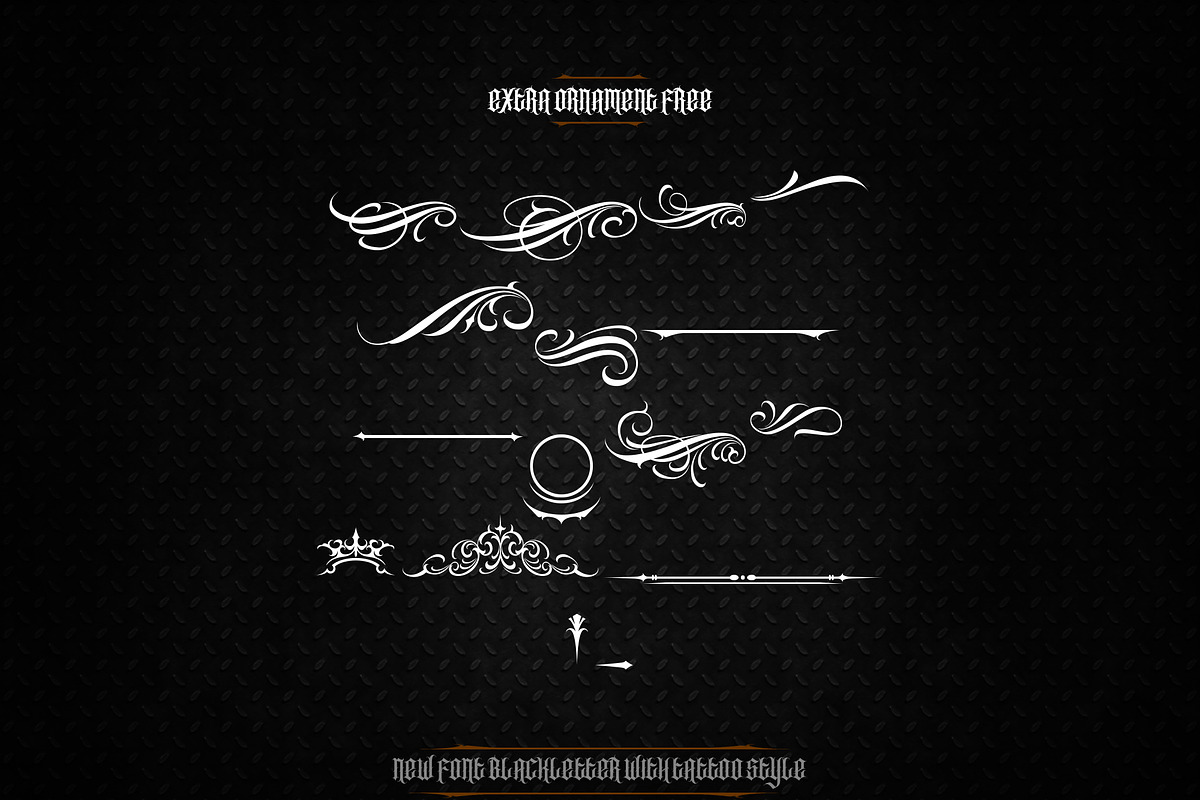
SOUTHSIDE | EXTRA BONUS
SOUTHSIDE font includes uppercase letters, numerals, a large range of punctuation and FREE EXTRA BONUS Ornament. Proffesional blackletter font with tattoo style and many ornament free for your logo lettering, shirt design, logo tattoo studio, tattoo design, branding, wtc.